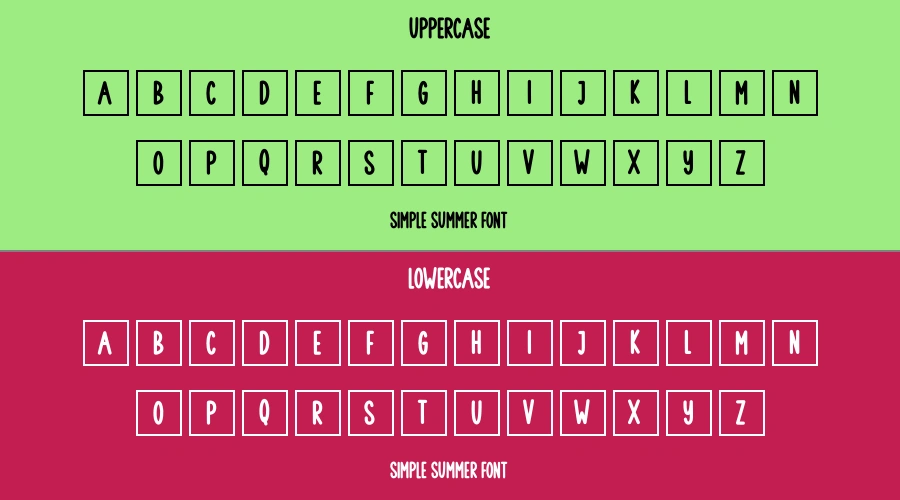
About Simple Summer Font
Simple Summer Font stands out for its distinctive combination of elegant spacing and color consistency. Ideal for newspaper text, it provides the longevity and artistic merit that professional projects demand. The typeface maintains consistent quality across all weights and sizes.
Key features include refined width contrast and practical numerator/denominator, enhancing typographic expression. In certification marks applications, Simple Summer Font demonstrates exceptional brand recognition. The x-height and cultural relevance contribute to its distinctive character and professional appeal.